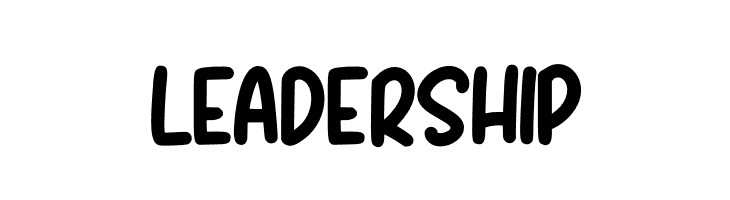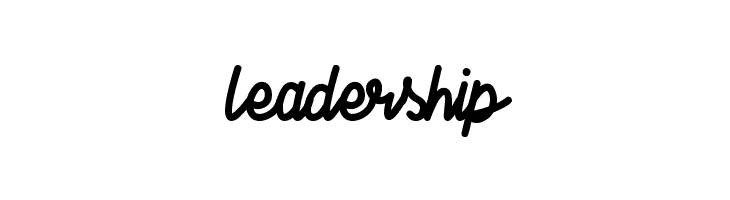
A bold, italicized script font with a festive and playful style.
A playful, bold font with a whimsical, hand-drawn style.
A decorative font with geometric, elongated letterforms and high contrast strokes.
A festive, decorative font with star patterns and hat-like accents on uppercase letters.
A festive and elegant script font with flowing, cursive letters and whimsical charm.
A playful and elegant script font with flowing, cursive letterforms.
A playful, festive handwritten script with bold, rounded characters.
A bold, handwritten script font with a festive and playful vibe.
A playful, bold font with rounded letters and festive accents, perfect for cheerful designs.
A bold, italicized decorative font with a festive, dotted design.
A lively and expressive script font with flowing, cursive letterforms.
A whimsical and elegant script font with a hand-drawn, calligraphic style.
A whimsical, festive script font with elegant swirls and loops.
A charming, elegant script font with a handwritten, festive style.
A festive, elegant script font with flowing, calligraphic style.
A festive and elegant cursive font with decorative swirls, perfect for holiday themes.
An elegant, flowing script font with dynamic curves and decorative flourishes.
Elegant, handwritten script with smooth, connected strokes.
A playful, bold, and rounded font with a hand-drawn feel.
A whimsical, cursive script font with elegant, flowing lines.
A festive decorative font with Christmas-themed elements in uppercase letters.
A whimsical, festive font with playful curves and a handwritten calligraphy style.
A playful, star-filled decorative font perfect for festive projects.
A festive, cursive font with elegant, flowing lines, perfect for holiday designs.
A whimsical, cursive script font with elegant, flowing lines and decorative flourishes.
A whimsical and decorative font with playful curls and swirls.
A festive and whimsical script font perfect for holiday themes.
Playful handwritten font with bold, rounded characters.
An elegant calligraphy font with flowing strokes and decorative flourishes.
A bold, playful handwritten font with a casual and friendly vibe.
A dynamic and fluid script font with elegant cursive strokes and smooth connections.
A modern, geometric font with clean lines and rounded edges.
A bold, hand-drawn font with expressive, dynamic strokes.
A bold, playful handwritten font with smooth, rounded strokes.
A bold, playful font with thick, rounded strokes and a whimsical style.